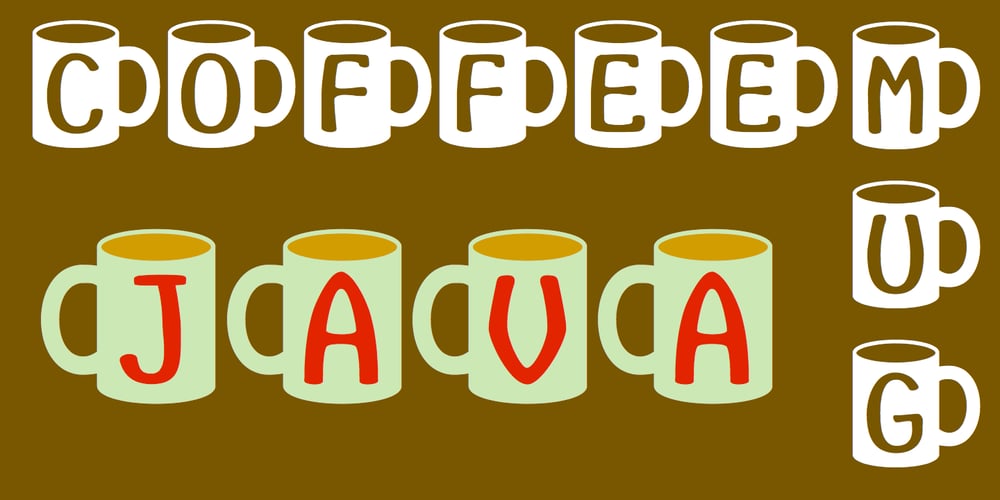
CoffeeMug
CoffeeMug font
CoffeeMug Font Family was designed by Robert Schenk and published by Ingrimayne Type. CoffeeMug contains 1 styles and family package options. CoffeeMug has letters on coffee mugs. Upper-case letters have the handles to the left and lower-case characters have the handles to the right. The letters on the mugs are from the typeface InsideLetters. The typeface contains characters that will add color to letters. There are two ways to do this. One uses layers and the other a combination of characters, some with zero-width. A file that explains the ways that this can be done is here.